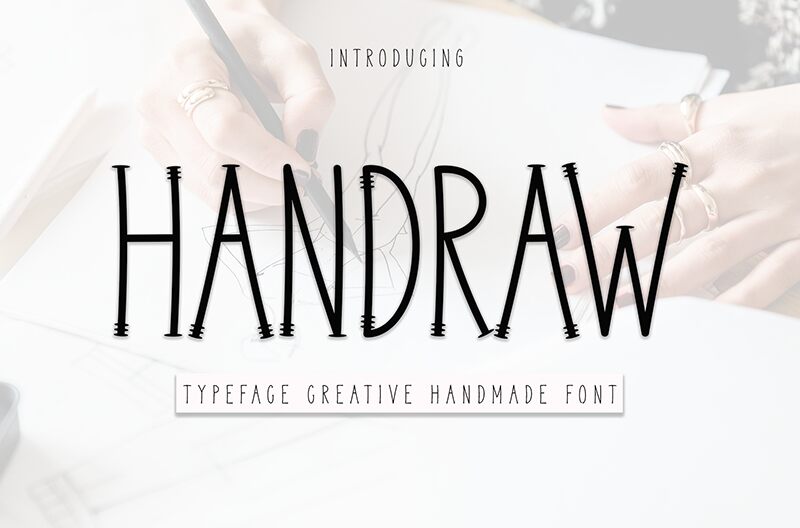
Handraw
Handraw is a display font by Andi Moz that can be used for personal and commercial projects, this original font can also be found on his portfolio. The font is inspired by vintage woodcut carvings and is available in a light weight. This sans serif font is perfect for branding projects, posters, apparel, editorial, or even labels for packaging.
Handraw is a hand-drawn font that brings the essence of an old handicraft to your projects, its condensed design gives it this handmade aesthetic. The font includes a wide selection of characters such as uppercase and lowercase letters, numbers, and a lot more! Check out his portfolio for more fonts.